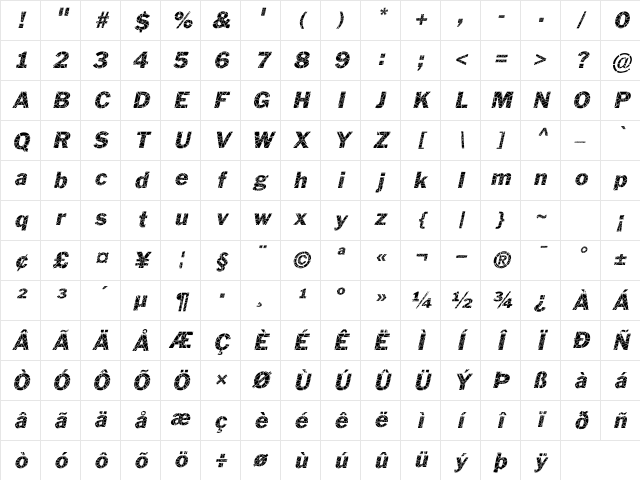
Complete Philadelphia Cracked Italic glyph index. Displaying only characters natively supported by Philadelphia Cracked Italic font.
Philadelphia Cracked is a composed and adaptable typeface that performs quietly and consistently across a wide range of design contexts. The slanted form adds forward momentum and visual energy.